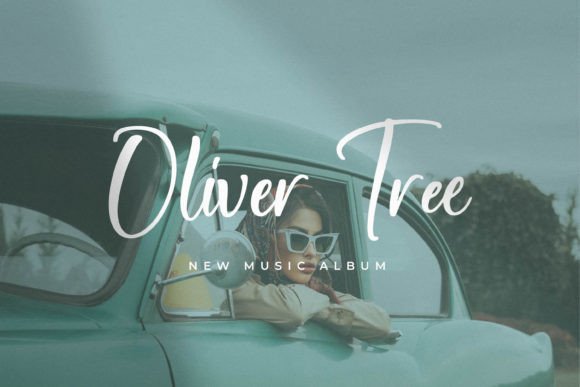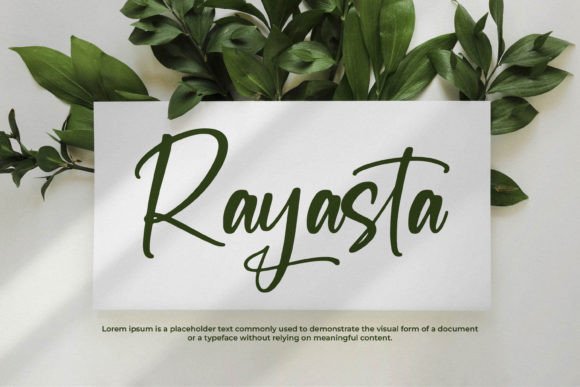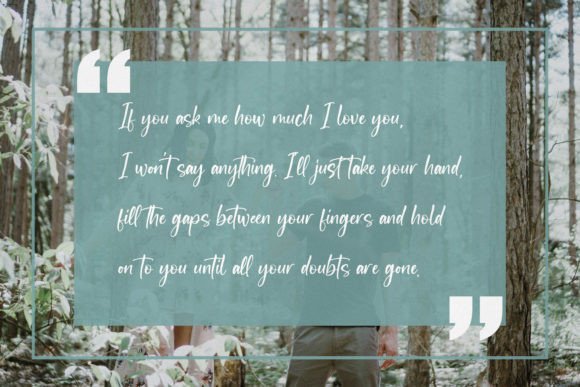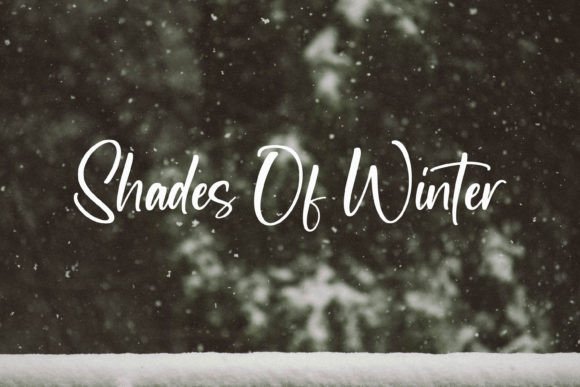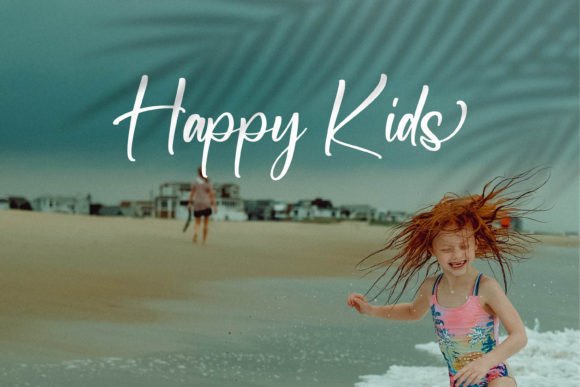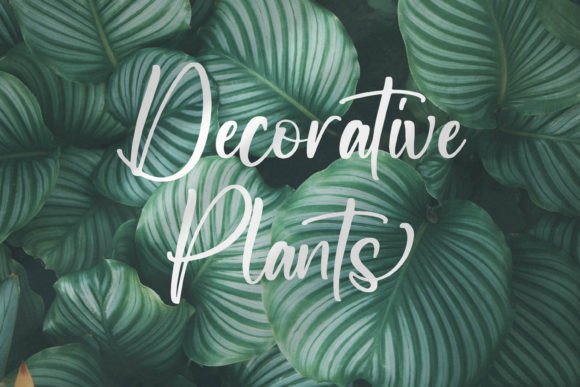
Introduction to Newscript Font
Do you remember that moment when you finally nailed a design concept for a client, and it just felt ‘right’? The colors, the layout, the typography – everything came together in perfect harmony. That’s the magic of great design. And, for designers, finding the perfect font to elevate a project can be a game-changer.
Enter the Newscript Font, a stunning modern script font that’s perfect for adding a touch of elegance to your creative projects. Whether you’re working on a logo, branding project, or product packaging, this beautiful handwritten font is sure to make your designs stand out.
Key Features of Newscript Font
- High-quality, professional design ideal for creative projects and presentations.
- Designed with a unique, modern aesthetic, making it perfect for modern and creative projects.
Honest Review: Newscript Font
As a designer, I’m always on the lookout for high-quality design resources to elevate my creative projects. Recently, I had the chance to try out the Newscript Font, and I’m excited to share my honest review with you.
- High-quality design: The Newscript Font boasts a sleek and modern design that’s perfect for creative projects.
- Professional look: The font gives off a professional look, perfect for business cards, brochures, and other marketing materials.
- Limited font styles: The Newscript Font only comes in a few font styles, which might limit its versatility.
- Not ideal for body text: While it’s great for headlines and titles, the font might not be the best choice for body text due to its readability issues.
Overall, the Newscript Font is a solid addition to any designer’s toolkit. Its high-quality design and free download make it an excellent resource for creative projects. While it has some limitations, it’s still a great choice for designers looking for a modern and professional font.
Using Newscript Font in Creative Projects
The Newscript Font is ideal for use in a variety of creative projects, including digital designs, logos, and typography-based art. It’s perfect for designers looking for a unique and eye-catching font to elevate their work.
Tips for Getting the Most Out of Newscript Font
To get the most out of the Newscript Font, experiment with different font sizes, colors, and combinations. Use the font with a transparent background to create a striking visual effect. Also, pair the font with other high-quality design resources to create a cohesive and professional look.
Common Use Cases for Newscript Font
The Newscript Font is commonly used in digital designs, logos, and typography-based art. It’s also a popular choice for creating social media graphics, business cards, and other marketing materials.